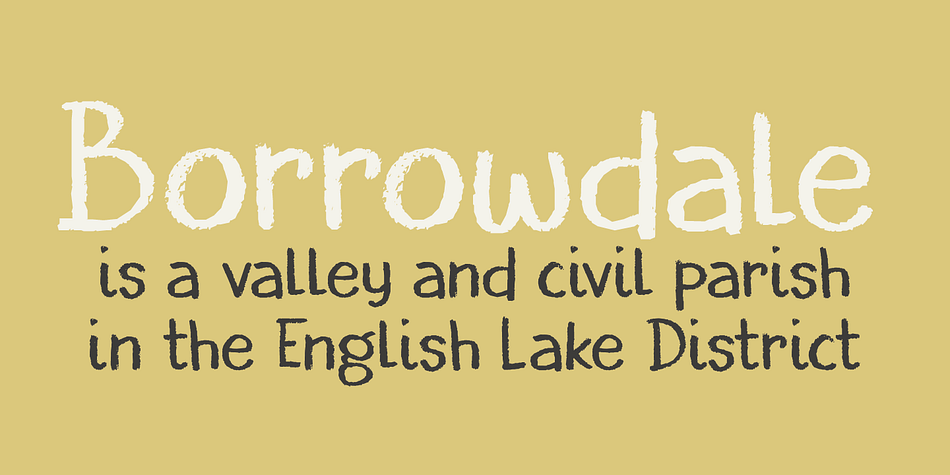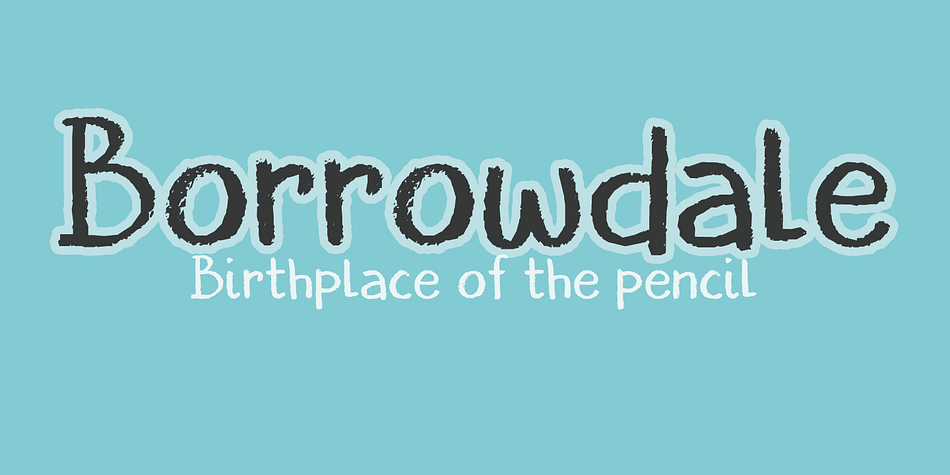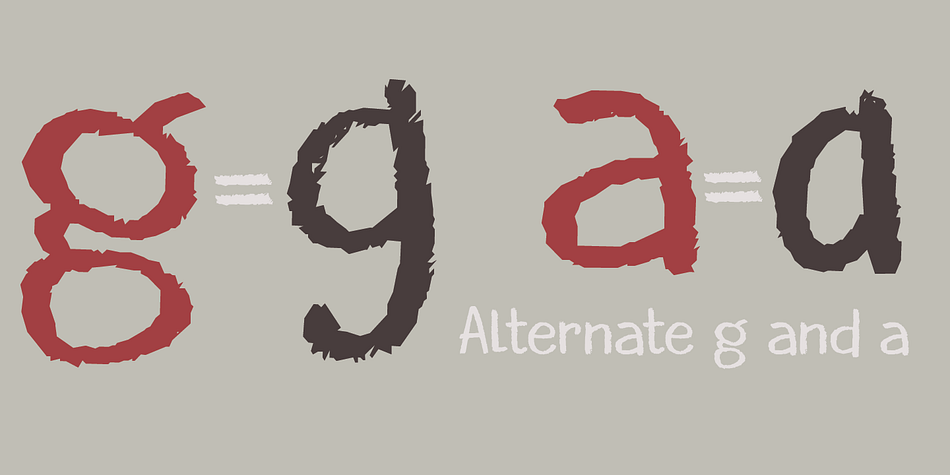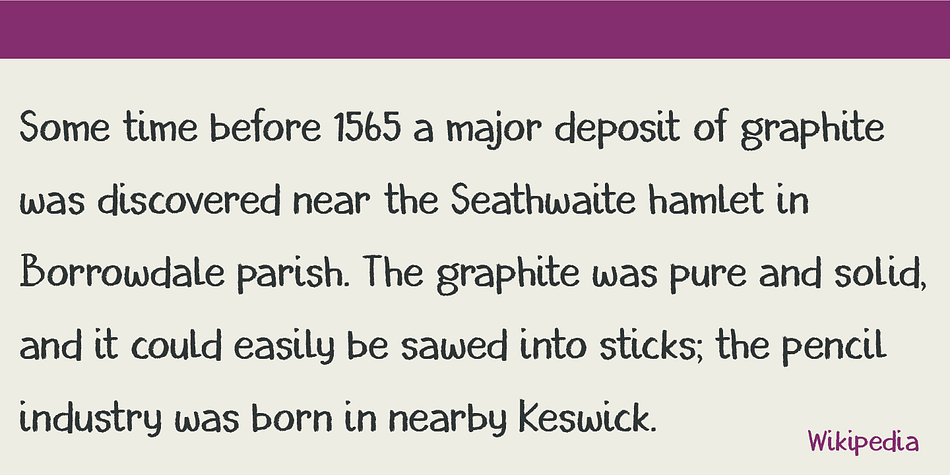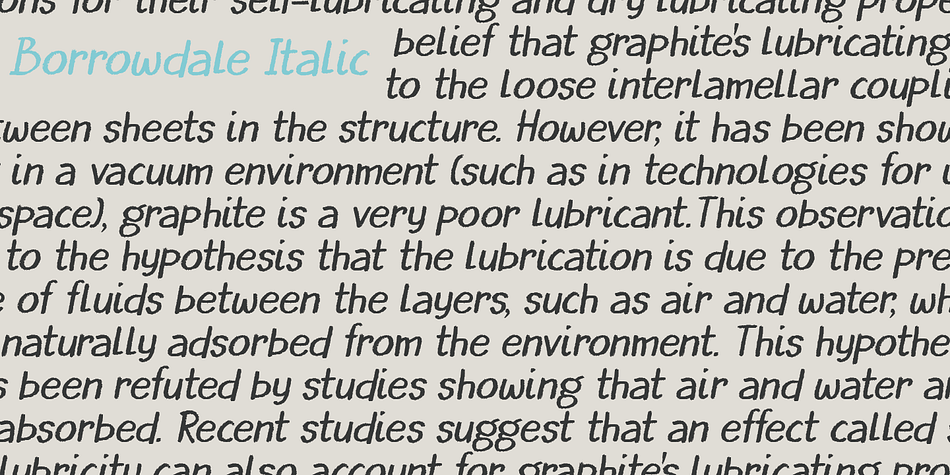
Designed by David Kerkhoff, Borrowdale is a hand drawn and kids font family. This typeface has two styles and was published by Hanoded.
Borrowdale is a valley and civil parish in the English Lake District. In the 16th century a major deposit of graphite was discovered near Seathwaite, which kickstarted the pencil industry.
Borrowdale font was made with one of my son’s coloring pencils (which probably does not contain a single molecule of graphite). It is a very legible and easy-on-the-eye font, ideal for children’s books, texts and product packaging.
It comes with a mother lode of diacritics.